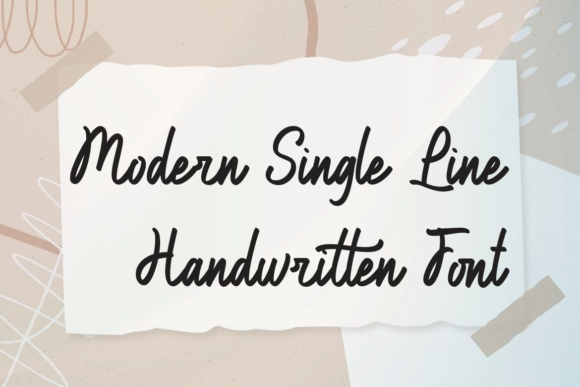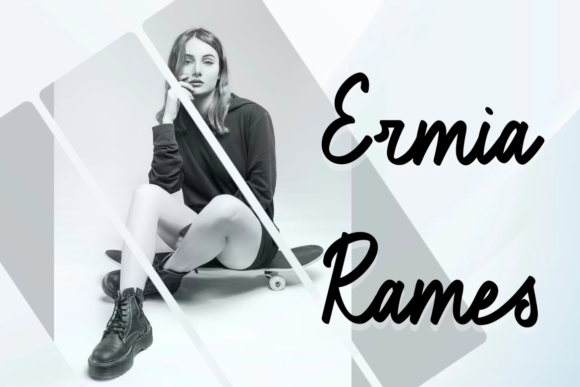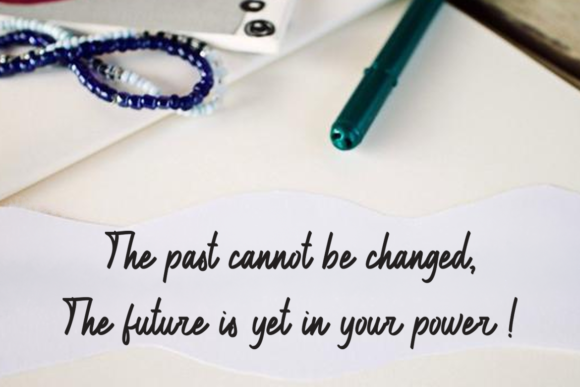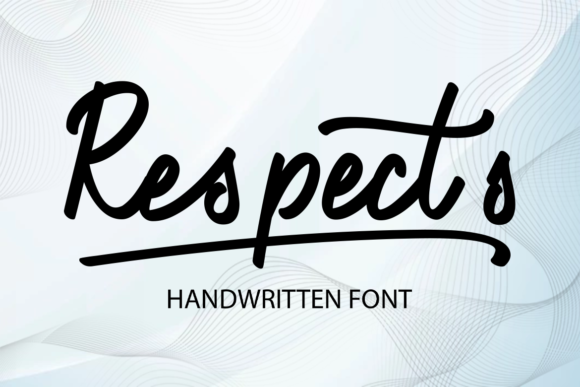
Introduction to Respects Font
Respects is a sweet and cute yet fun handwritten font.
It is perfect for quotes, notes, greeting cards, packaging, standout branding, and many more Whatever the topic, this font will make a great asset, as it will take your designs to the next level.
Respects Font offers exceptional quality and versatility, making it a valuable addition to your design toolkit. Whether you’re creating for personal projects or commercial use, Respects Font delivers professional results.